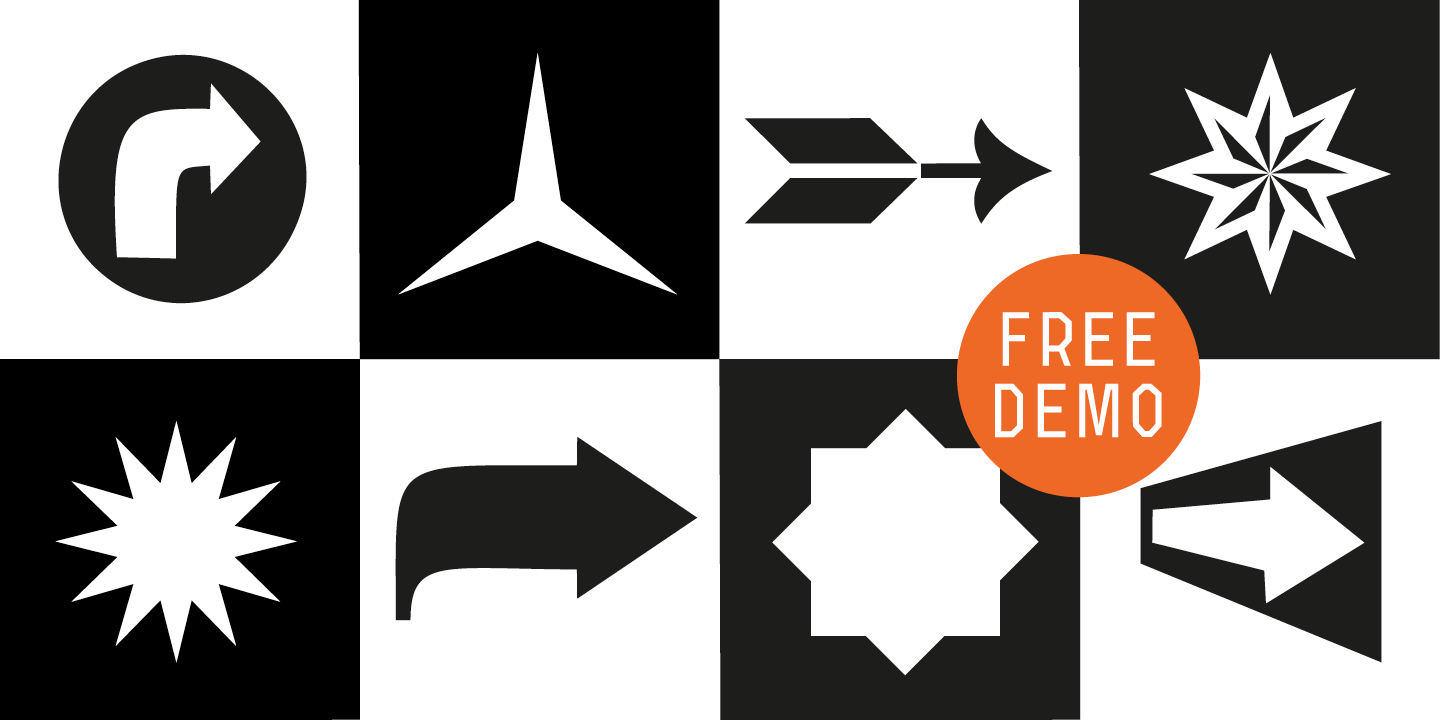
The Icons Dingbats Symbols Set Font is an incredibly practical and versatile asset for any designer or content creator. Unlike traditional character fonts, this set provides a comprehensive collection of visual elements, making it perfect for an extensive array of applications. Imagine using it to create intuitive user interfaces, engaging infographics, eye-catching website navigation, distinctive bullet points in presentations, unique branding elements, custom icons for apps, or even decorative borders and patterns in print materials. This font set streamlines the process of adding visual interest and functional symbols to any project, from digital dashboards to printed flyers, enhancing clarity and aesthetic appeal without the need for complex graphic design software.
What makes the Icons Dingbats Symbols Set Font truly exciting is its sheer utility and instant visual communication power. Instead of searching for individual graphics or drawing them from scratch, you can simply type a character and have a professionally designed icon appear. This not only saves immense amounts of time but also ensures consistency in your visual language. It offers a universal way to convey meaning, transcending language barriers and making your designs more accessible and user-friendly. This font set is a toolkit for visual storytelling, allowing you to quickly add direction, emphasis, or decorative flair, breathing life and functionality into otherwise plain text. It’s a secret weapon for efficiency and impactful design.
The Icons Dingbats Symbols Set Font family, while not having traditional "weights" like text fonts, typically offers a vast and diverse collection of symbols, icons, and dingbats, each mapped to a specific character key. This means you get a wide range of categories, from arrows and pointers to stars, hearts, weather symbols, communication icons, and decorative flourishes. Some sets might even include variations in outline or solid fill, or slightly different styles within the collection. The strength of Icons Dingbats Symbols Set Font Free Download lies in its comprehensive nature, providing a ready-to-use library of visual assets that can be easily scaled and colored, just like any other font. This allows for incredible flexibility in integrating these symbols seamlessly into any design environment.